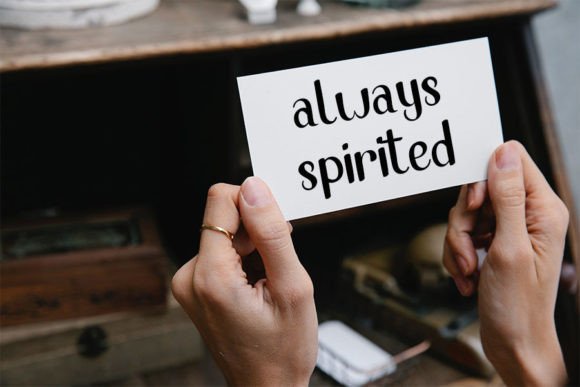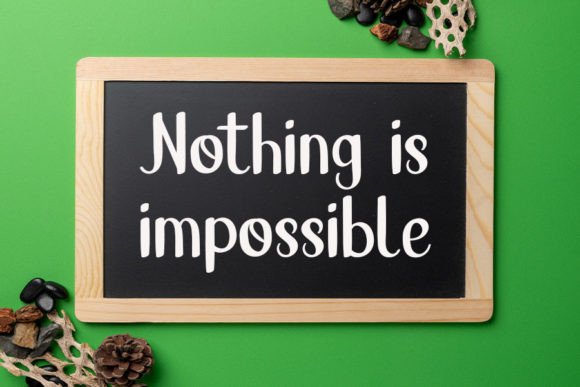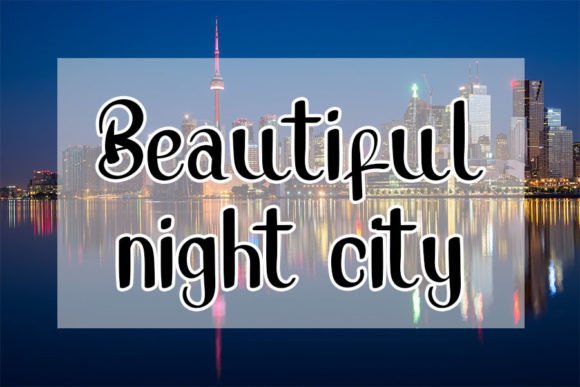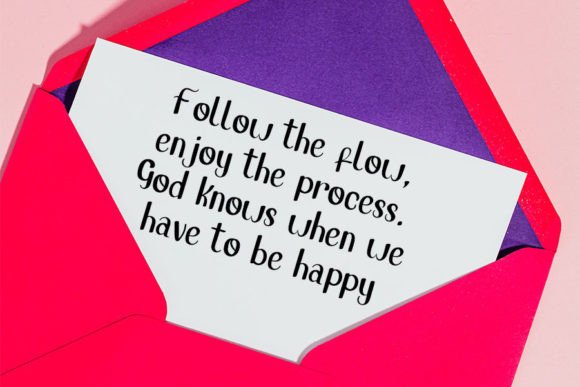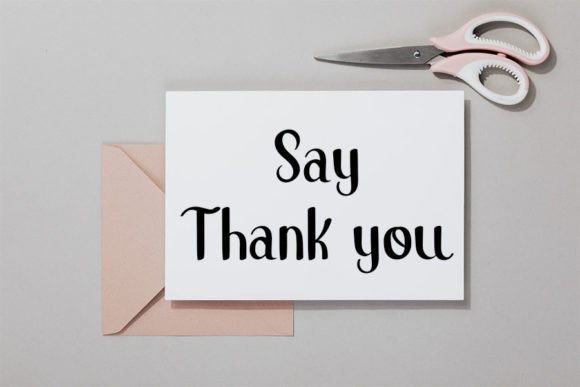
Wonderland Font
About Wonderland Font
“Wonderland” is introduced as a friendly handwritten font, meticulously crafted to become a cherished favorite in your creative projects. This font skillfully blends classy calligraphic influences with a contemporary and fresh feel, creating a unique and versatile typeface that can enhance the appeal of your designs.
The friendly and handwritten qualities of “Wonderland” make it adaptable for a variety of creative applications. Whether you’re working on branding, invitations, posters, or any other project, this font brings a personal and approachable touch.
The balance of classy calligraphic influences with contemporary freshness in “Wonderland” gives it a distinctive character. This harmonious blend allows the font to seamlessly fit into different design contexts, offering a timeless yet modern aesthetic.
By incorporating “Wonderland” into your creative endeavors, you have the opportunity to elevate the visual appeal of your designs. The careful design of this font suggests attention to detail, making it a valuable asset for enhancing the overall aesthetic of your projects.
In summary, “Wonderland” is more than just a font; it’s a carefully crafted tool for your creative projects. Embrace its friendly and classy calligraphic influences, and let it infuse a contemporary and fresh vibe into your designs, ensuring they stand out with outstanding charm.